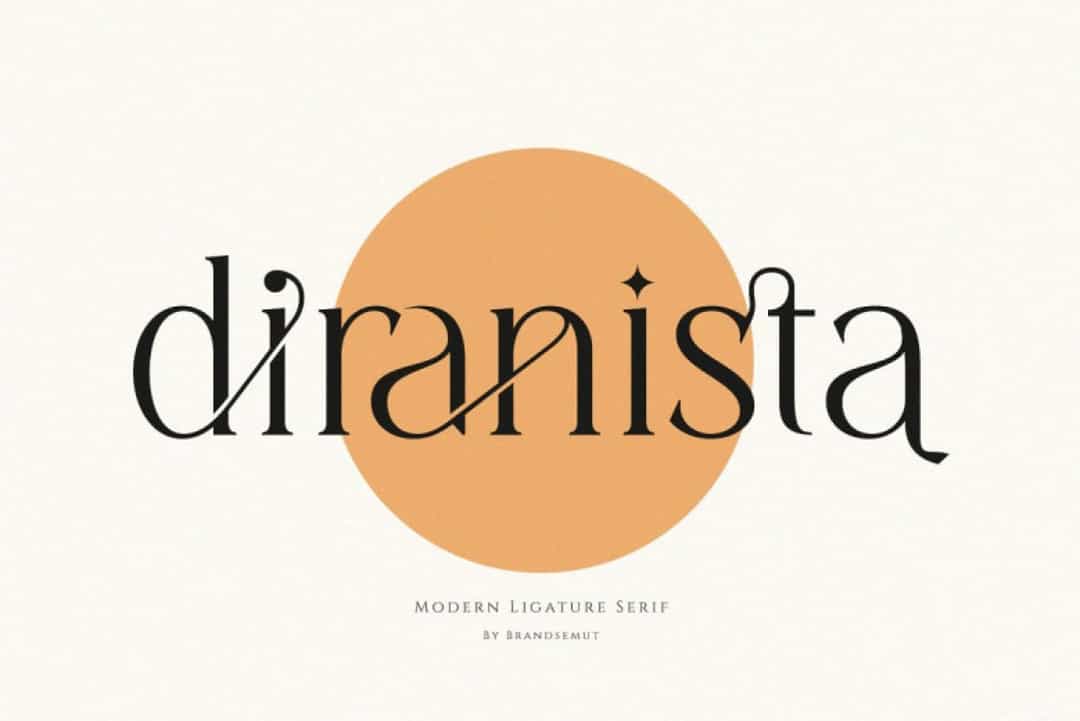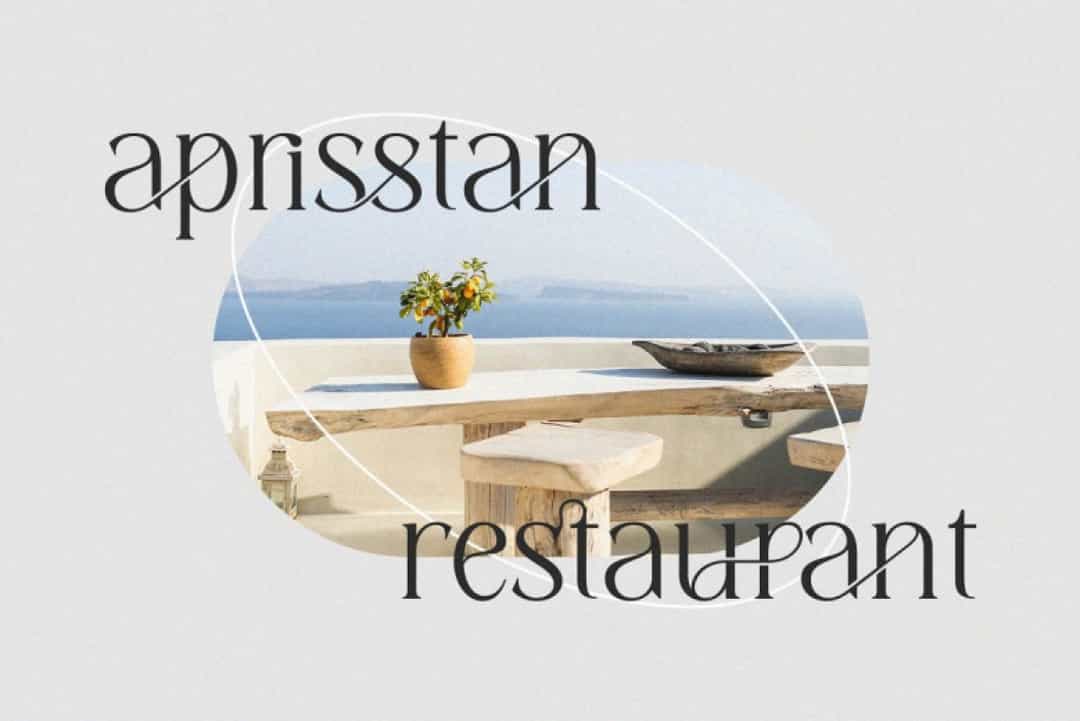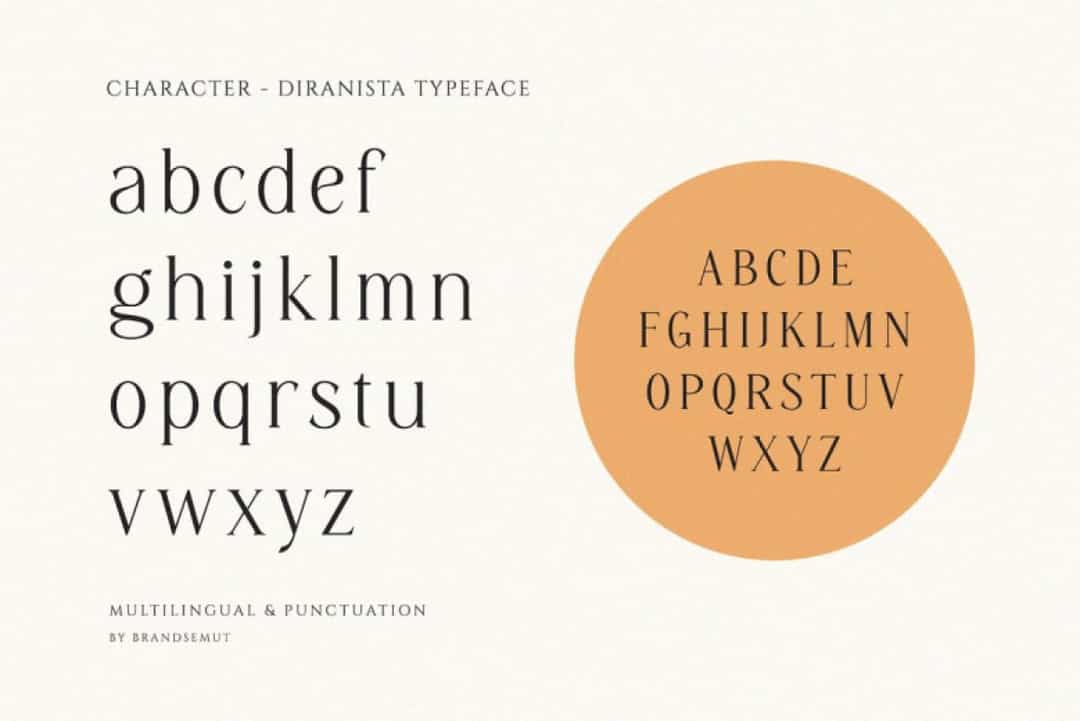
Diranista Font is an elegant and stylish serif typeface, ideal for modern yet nostalgic designs like magazines, logos, social media posts and more. Plus it comes matched and ready for use!